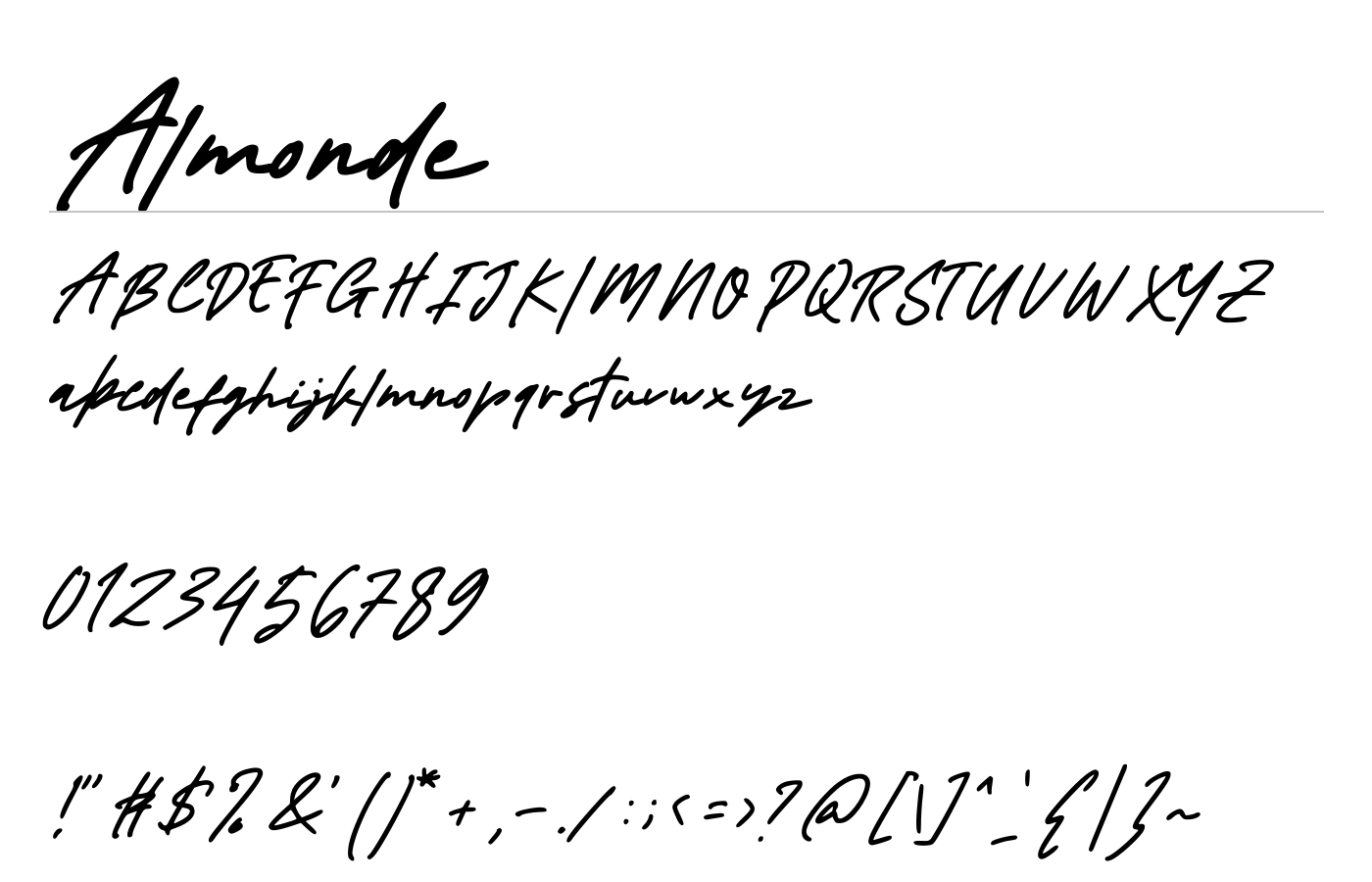
Almonde is a casual script font with a smooth, handwritten feel that combines elegance and approachability. Its slender, flowing strokes and moderate slant give it a natural, personal touch perfect for creative and informal designs. This font works well for branding, invitations, and any project seeking a stylish yet friendly vibe.
Almonde Font
About Almonde Font
| Designer | Muhammad Husni Haikal |